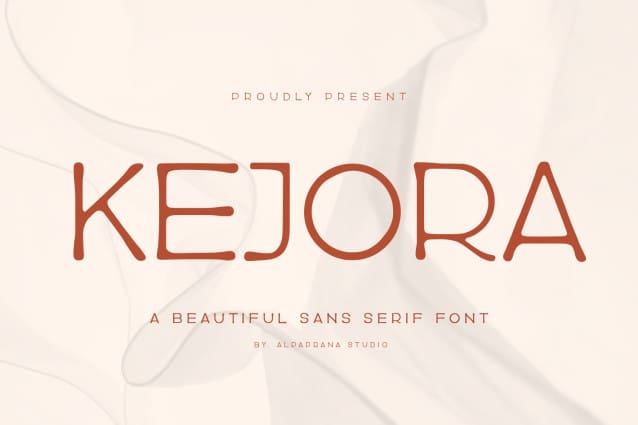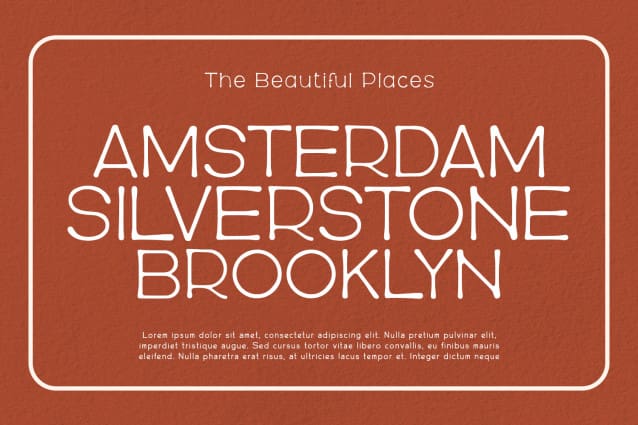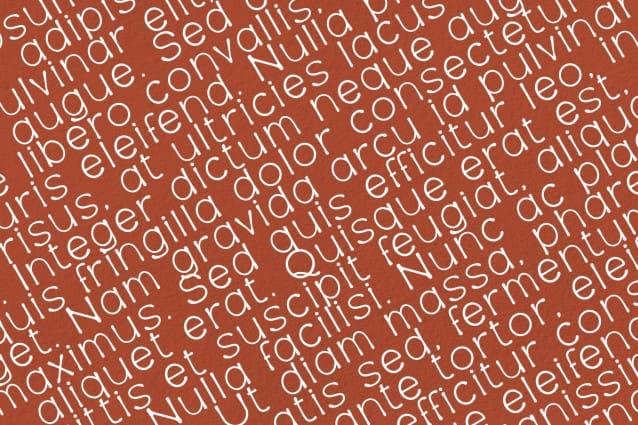
Kejora Font
Kejora Font is unique sans serif font with elegant and modern feels. It will be perfectly used for Branding, Logo Design, Lettering, Logotype, Clothing, Poster, magazine, packaging, posters, shopping bags, t-shirts, book covers, photography, special events and other design project.